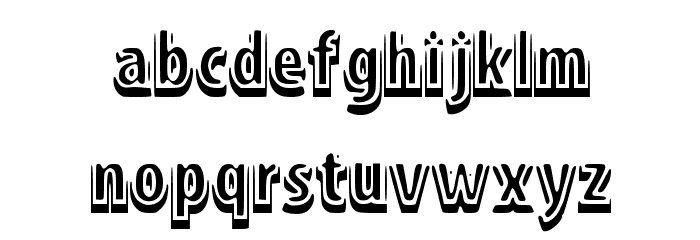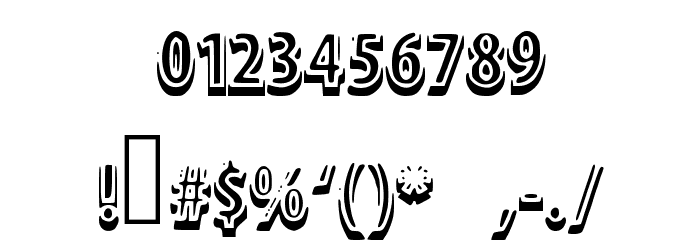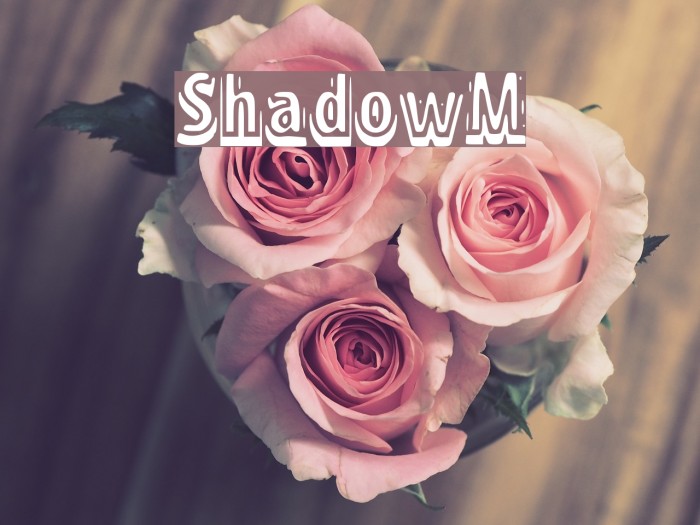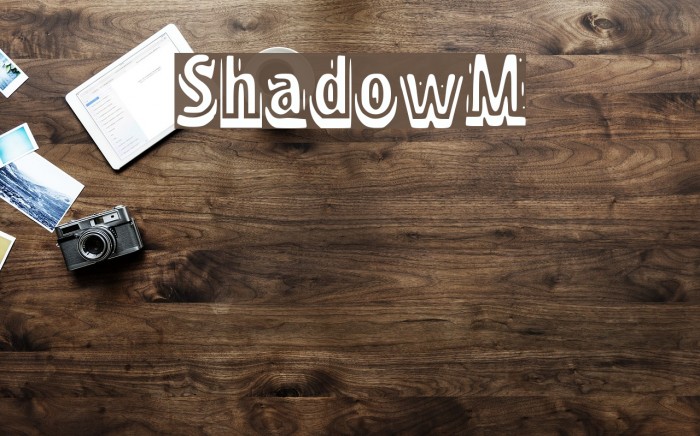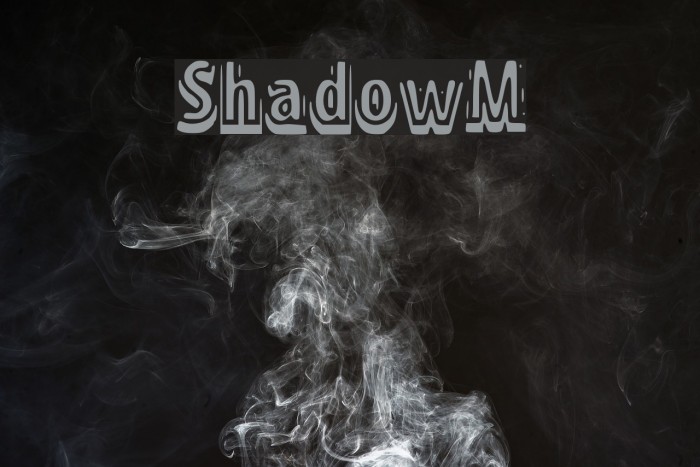
ShadowM Font
This font features a bold and striking design with a three-dimensional shadow effect that gives it a sense of depth and dynamism. The uppercase and lowercase letters are uniformly bold, with clean lines and a consistent stroke width. The numbers and special characters maintain this bold style, ensuring a cohesive look across all elements. The shadow effect is prominent, adding a playful yet sophisticated touch that makes the font stand out. This design is perfect for creating eye-catching headlines or logos that require a strong visual impact.
A bold, shadowed font with a three-dimensional effect for striking visual impact.
- Proposed Projects: Ideal for headlines, posters, logos, and any design needing a bold, attention-grabbing typeface.